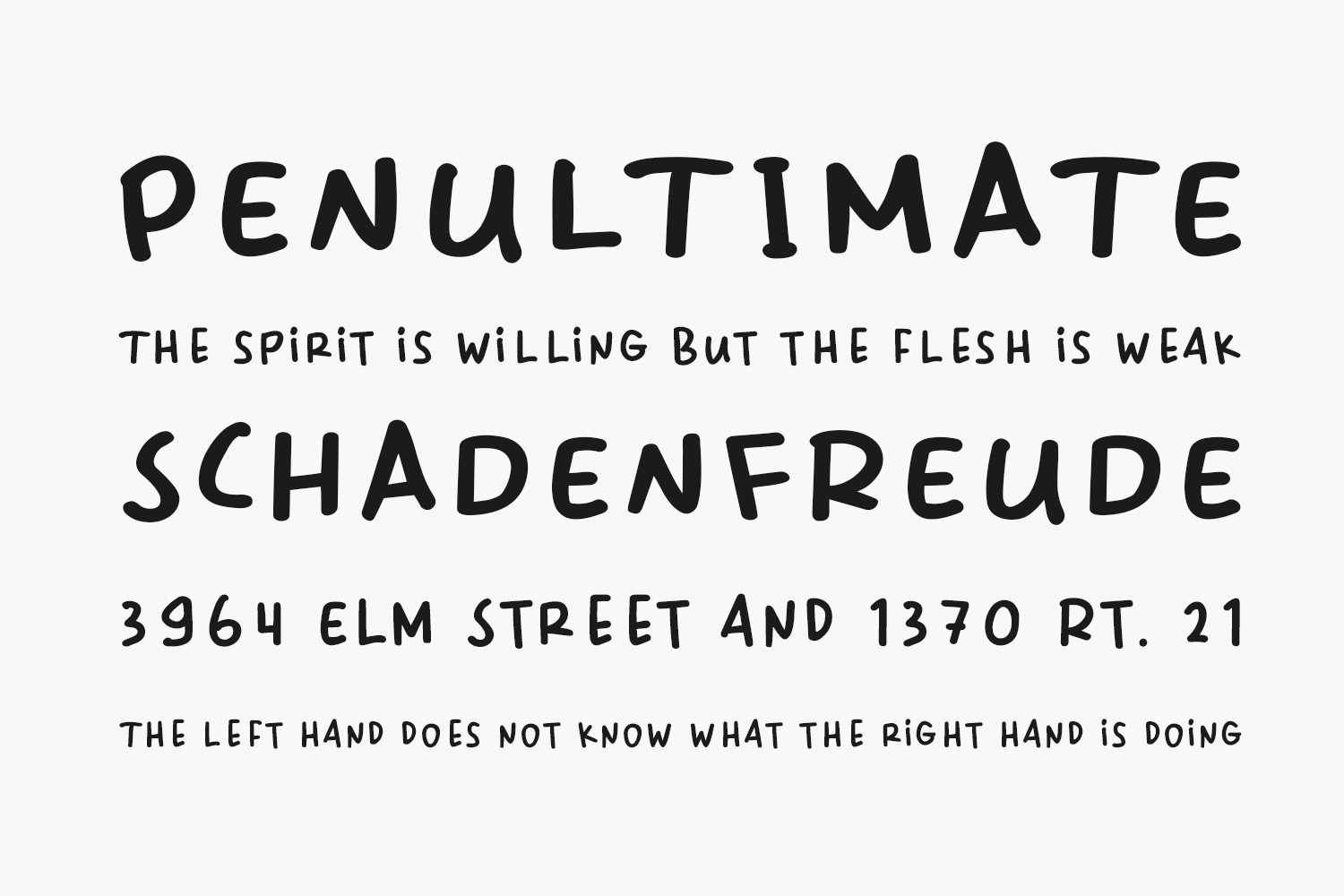
Introducing Telor Bistik Free Font, a delightful and one-of-a-kind children’s handwriting font that exudes playfulness and uniqueness. With its cute, cool, and cheerful vibe, this font infuses your designs with a sense of joy and fun, making them easily recognizable and memorable. Embrace the quirkiness of this font and embark on an exciting journey of creativity. Let your imagination run wild with Telor Bistik and enjoy the whimsical charm it brings to your projects. Telor Bistik Free Font is free for personal use only. Please purchase the full version for commercial use.